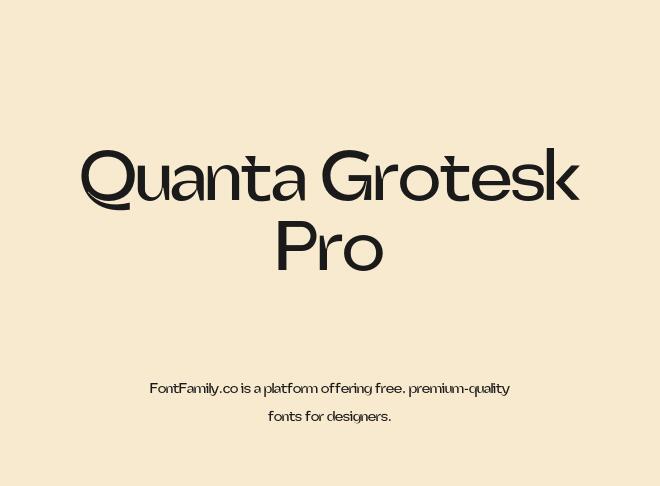
Quanta Grotesk Pro Font
Introducing Quanta Grotesk Pro Font, a modern and geometric typeface designed by Foundry XYZ. Released in 2021, this font offers a minimalistic approach to design, making it a perfect choice for clean, modern design projects. Its geometric structure provides a harmonious balance between form and function, ensuring readability while maintaining an elegant aesthetic. Comparable to fonts like Futura or Avant Garde, Quanta Grotesk Pro stands out with its unique character and style. Its sans serif nature makes it versatile for both digital and print mediums. Ideal for branding, web design, and editorial layouts, Quanta Grotesk Pro Font is an essential tool for any designer aiming for a contemporary and sophisticated look in their work.